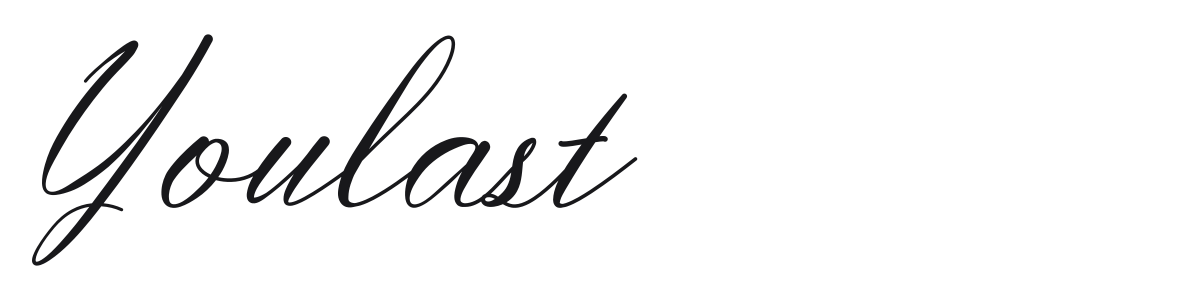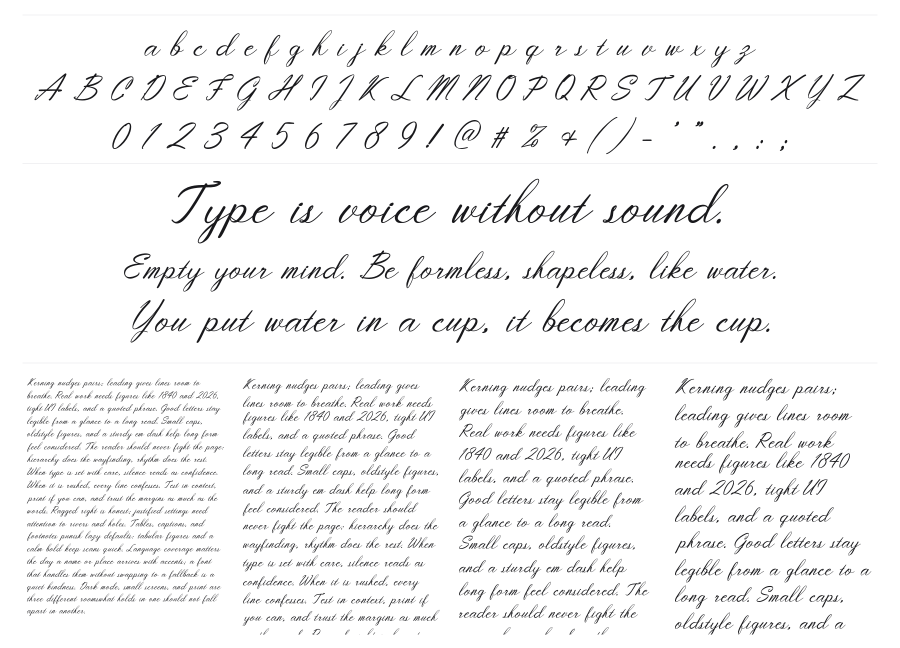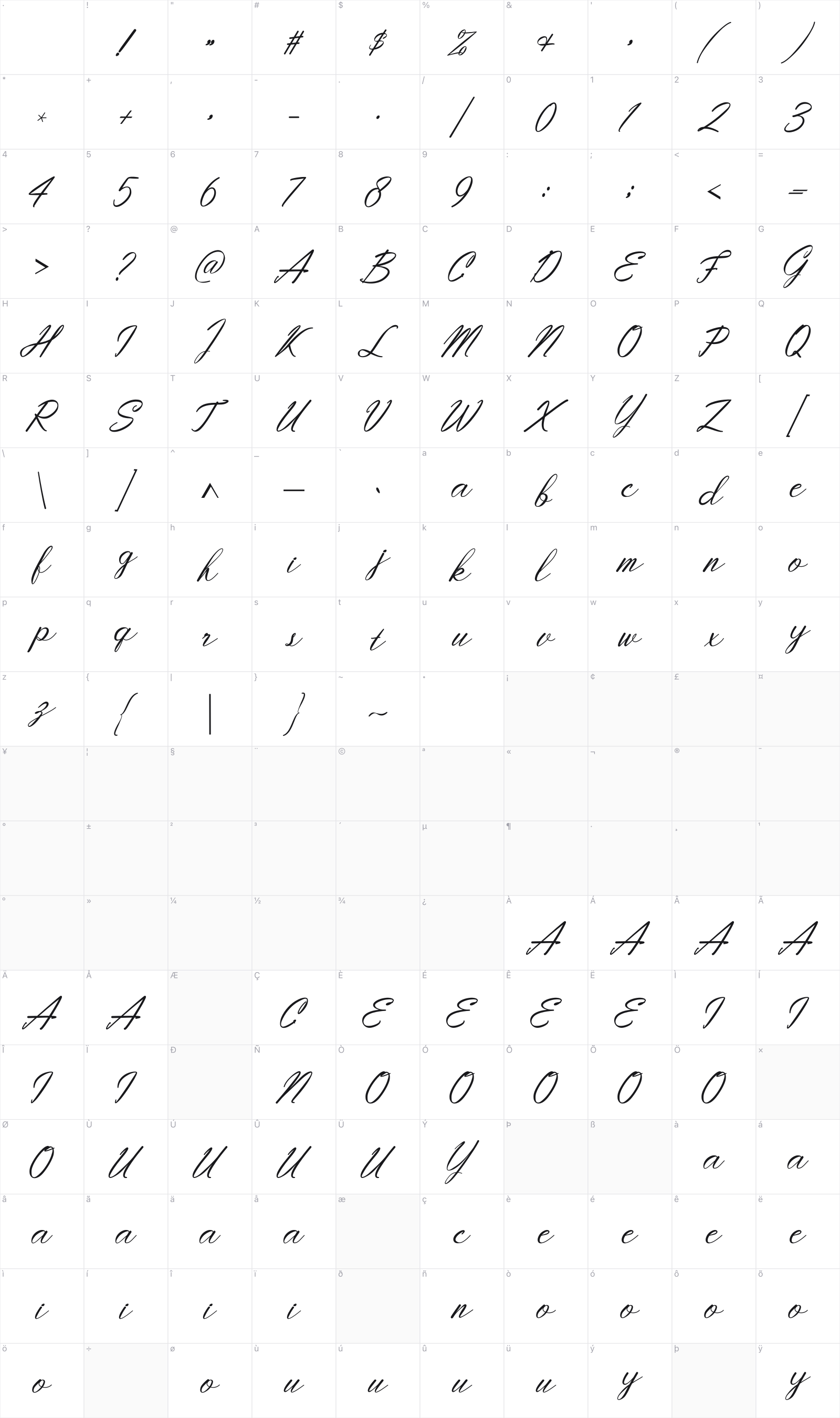
Youlast
Youlast is an elegant formal script rooted in copperplate and Spencerian calligraphy traditions, with sweeping loops and dramatic stroke contrast. Long flourished ascenders and descenders give it a fluid, ink-on-paper quality that feels genuinely handcrafted. It brings a romantic, upscale tone to wedding stationery, branding, and editorial headlines.